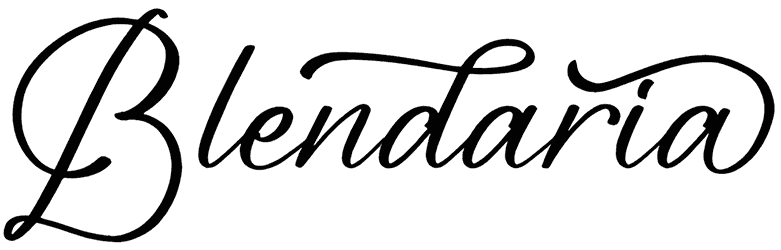
Blendaria Font
The lovely face is included in all the letterforms you will wish for creating striking typography. Blendaria will be valued via the friendly and romantic touch it carries. A few popular places to slide it are books, apparel, branding, and more.
This Valentine font is designed in two different styles, and in this regard, it adds a fine variety to your graphic works to convey a sense of warmth, dynamism, and majesty to the audience.